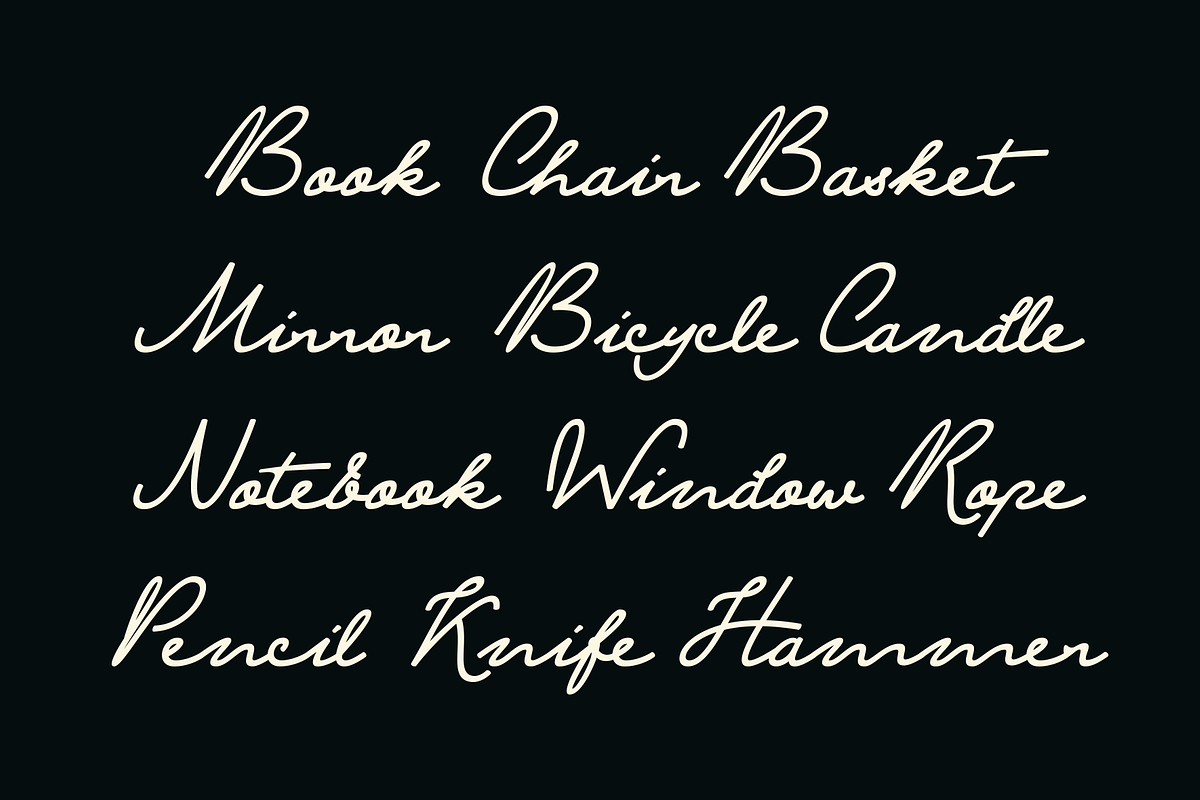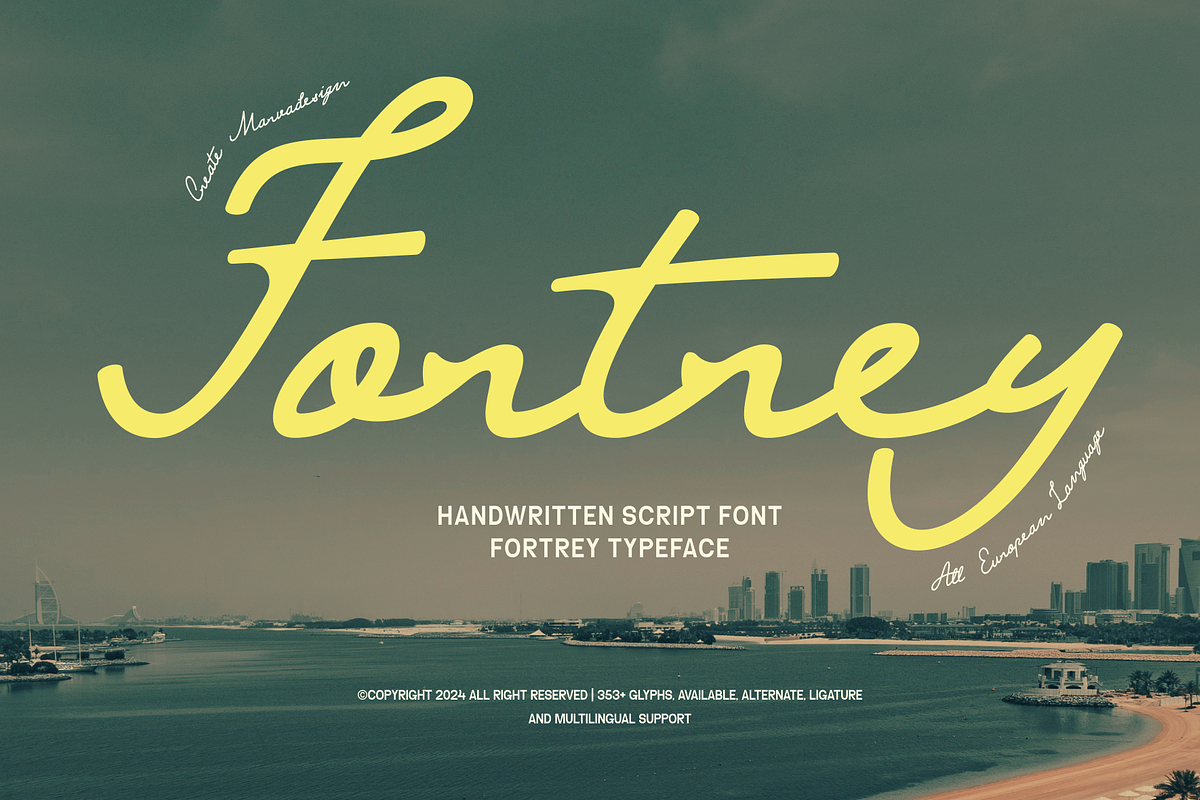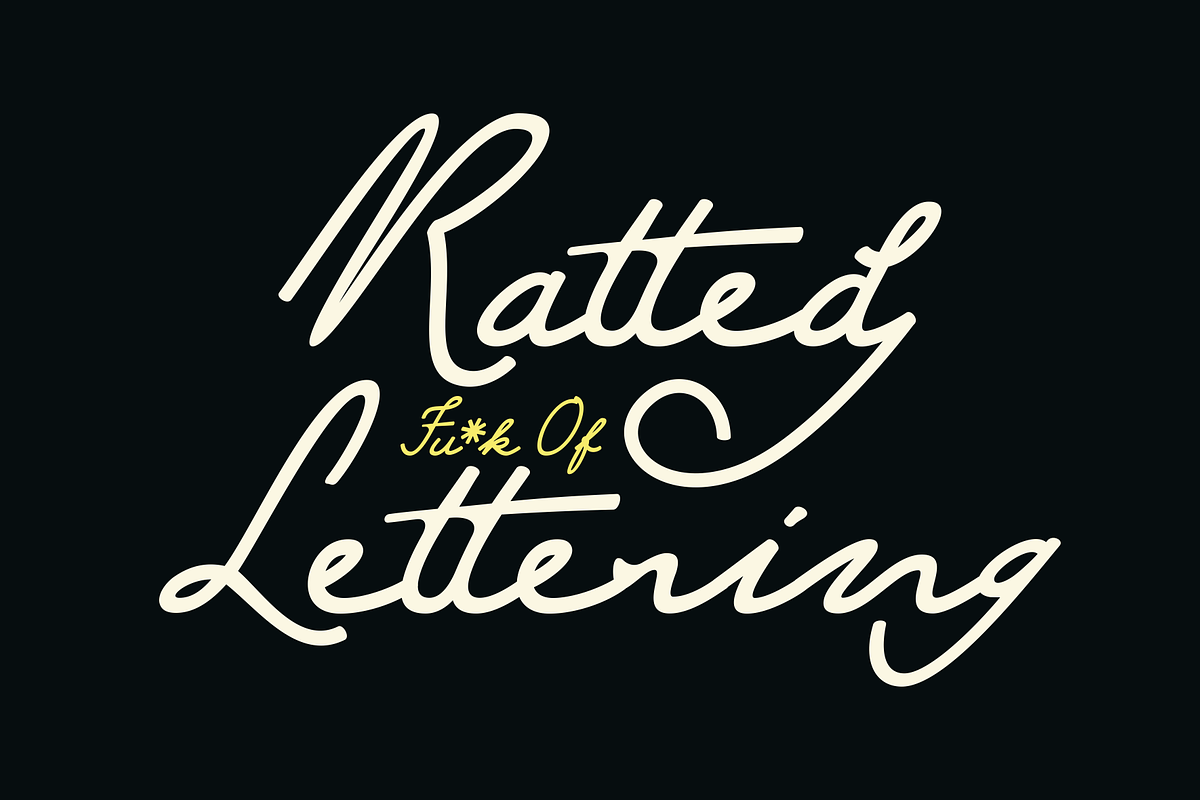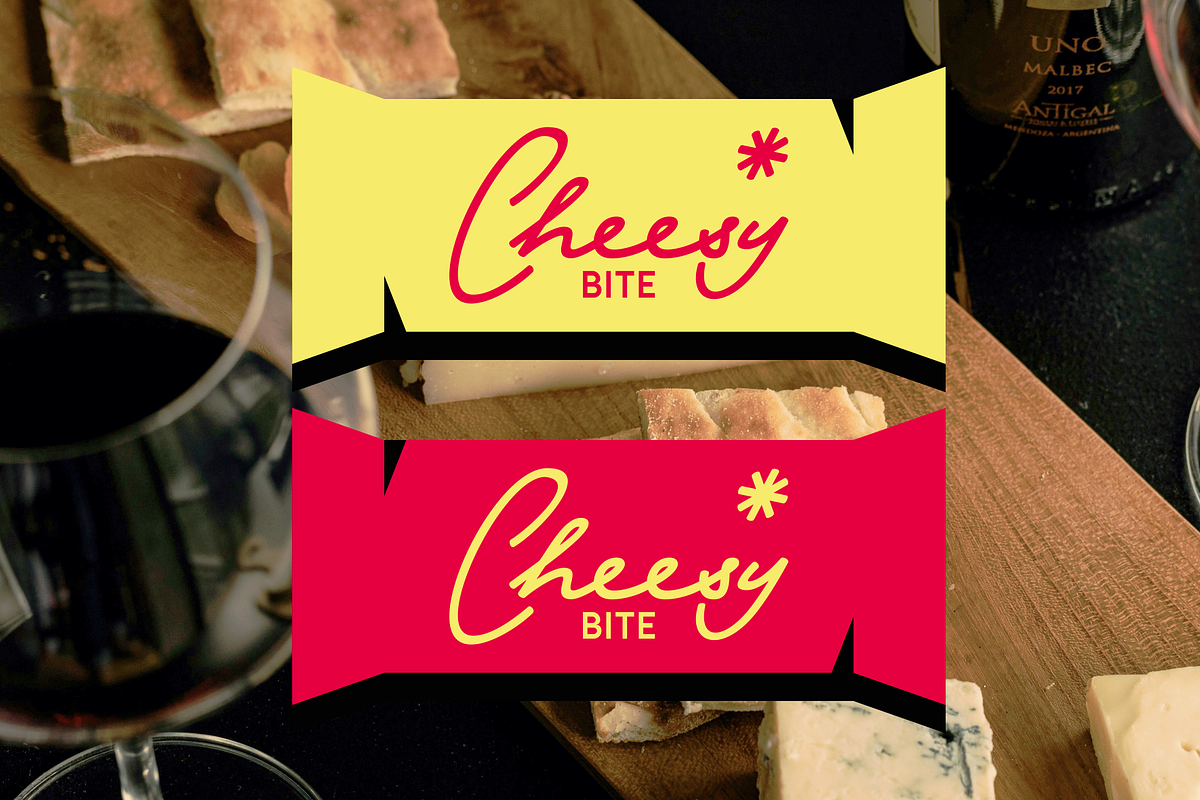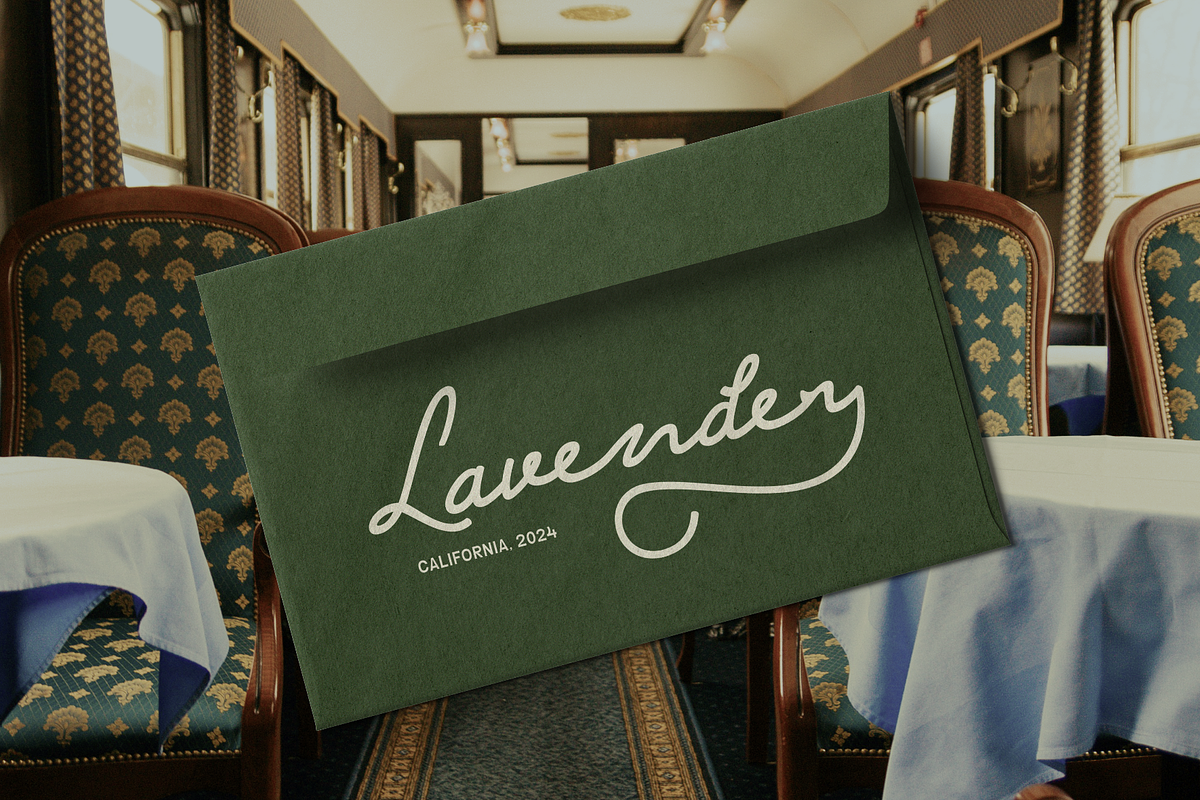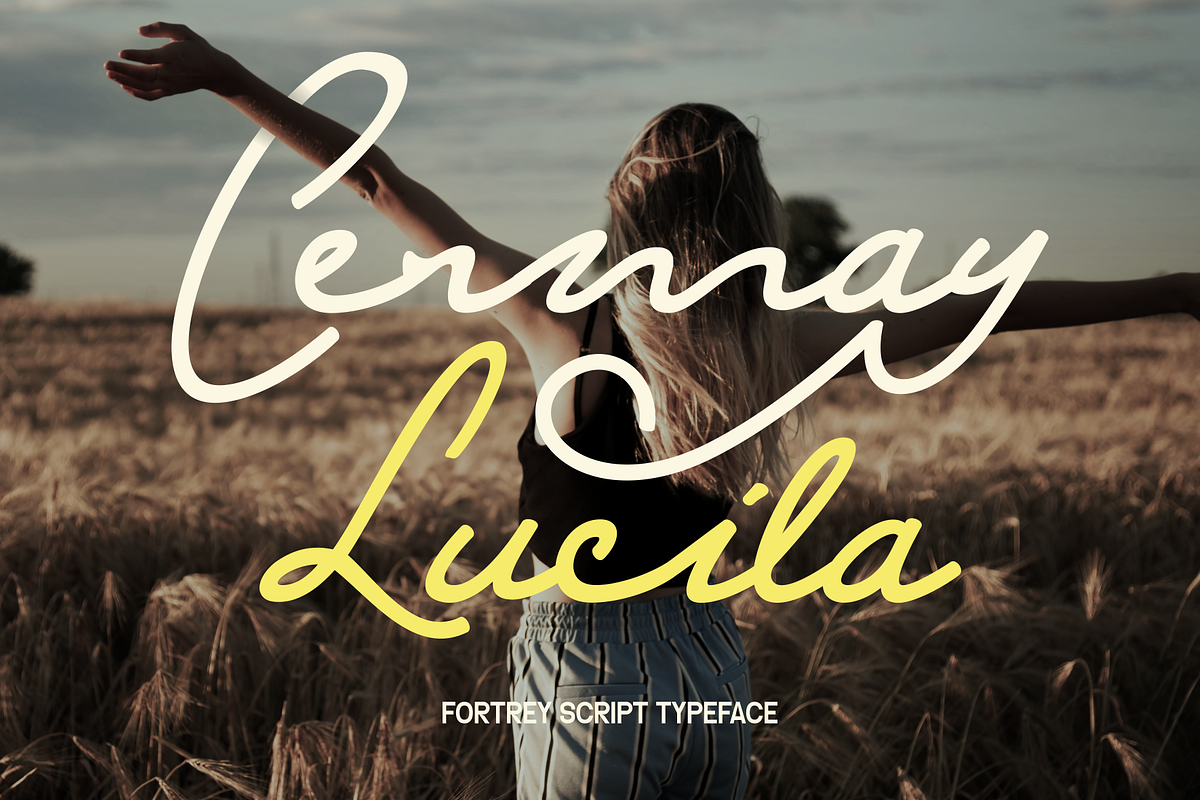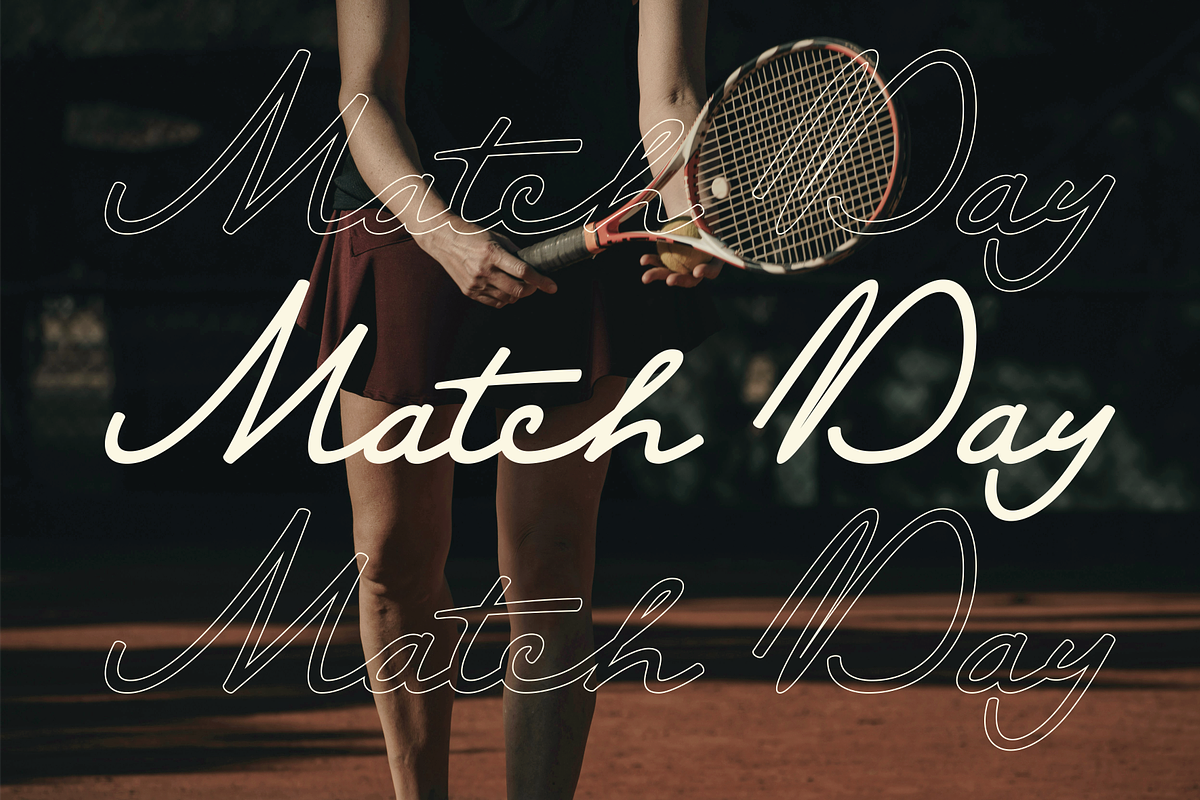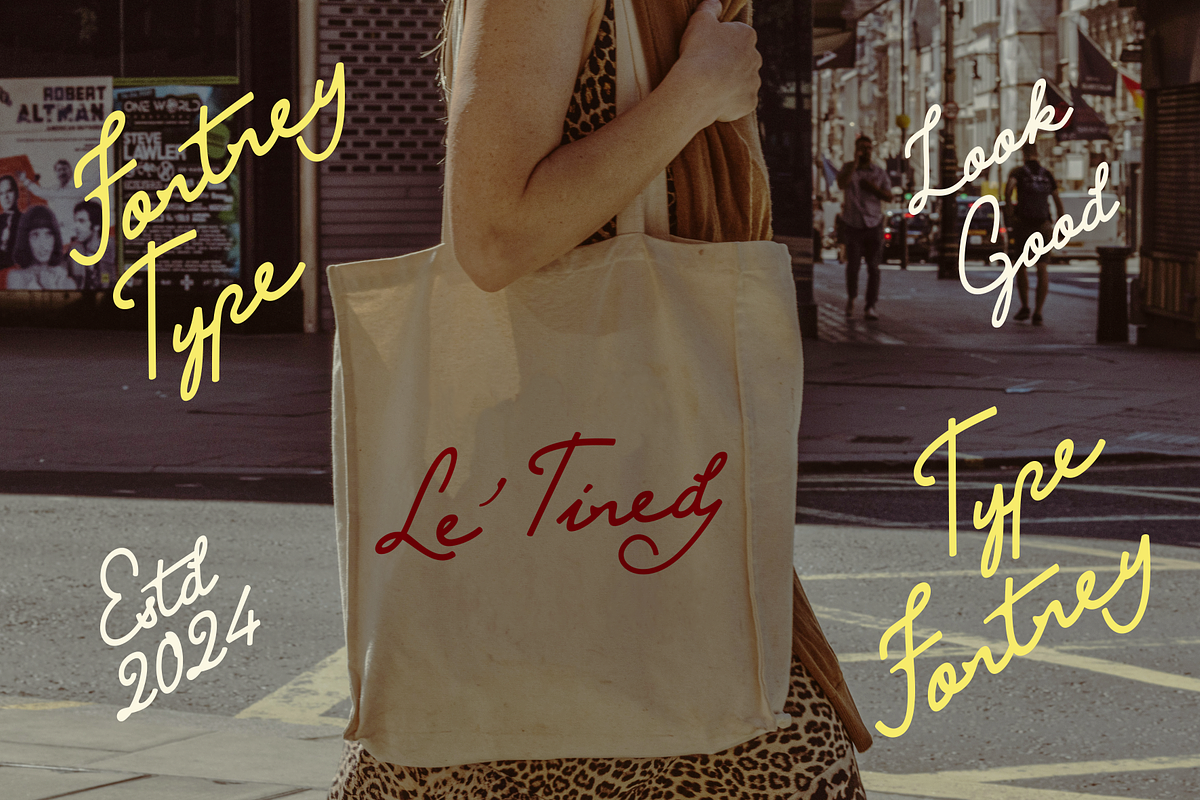
Fortrey
Introducing Fortrey is a timeless Classic Script Handwritten font that embodies elegance and sophistication. Designed with a refined line style, its smooth, rounded contours evoke a sense of vintage charm, making it a perfect choice for projects that seek a blend of classic and modern aesthetics. The font offers a harmonious flow in its characters, enhanced by carefully crafted alternatives and ligatures that provide versatility and creative flexibility. Whether used for branding, invitations, or editorial designs, Fortrey delivers a touch of grace and nostalgia, ensuring your work stands out with its unique and distinguished appearance.